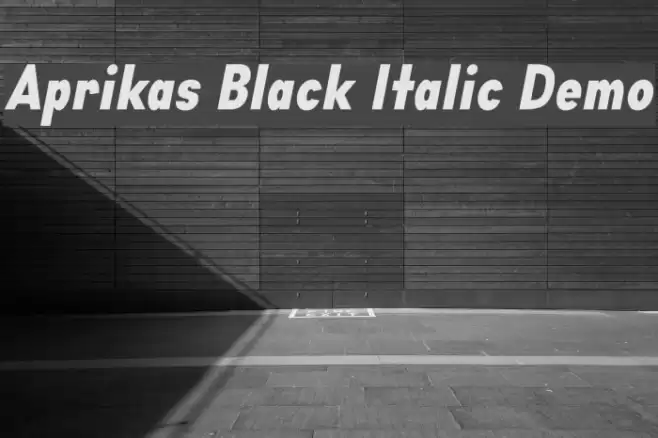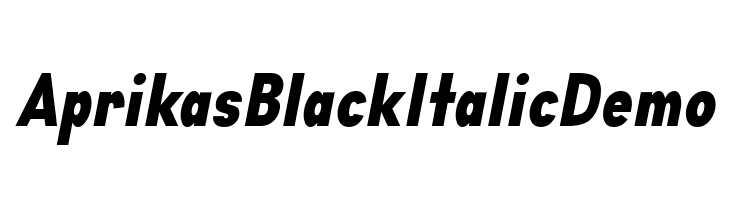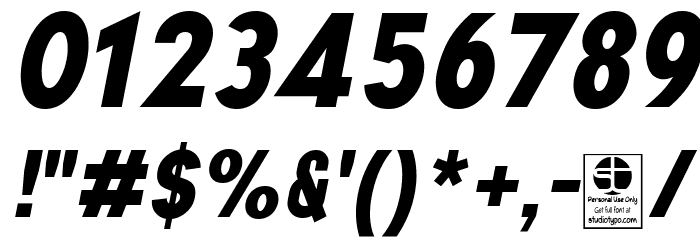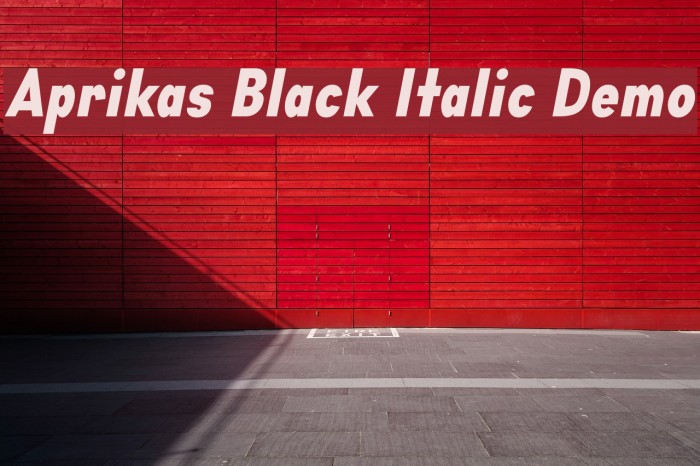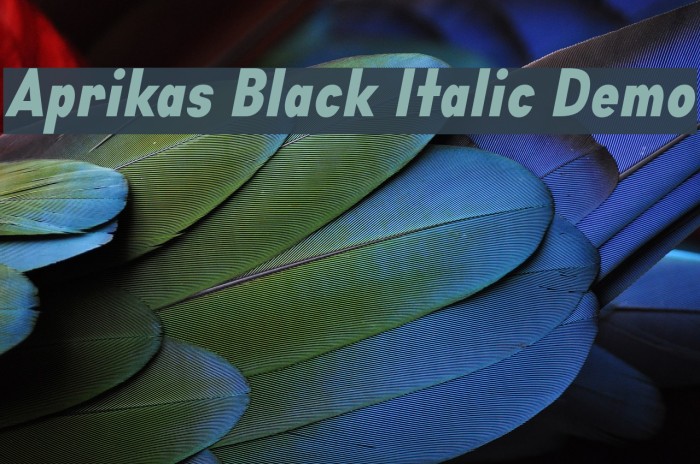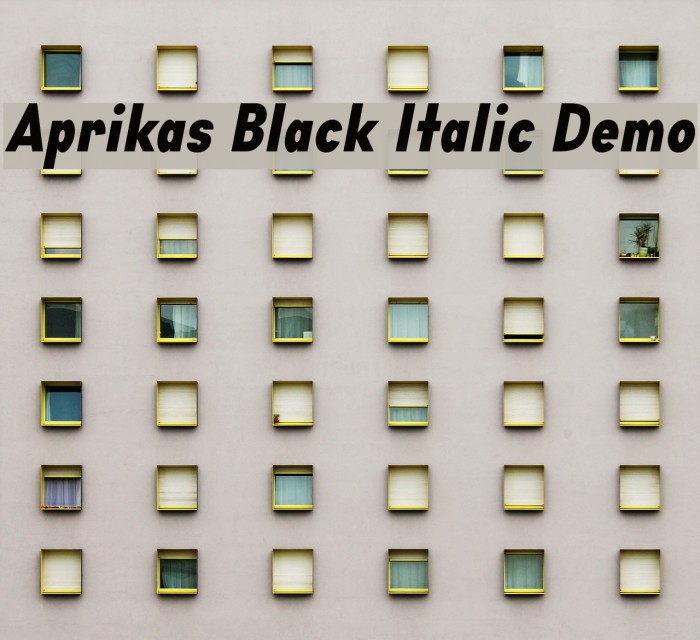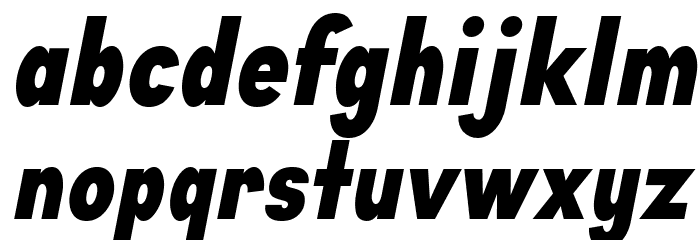
Aprikas Black Italic Demo Font
Aprikas Black Italic Demo Description
This font features a bold and italicized style, characterized by its strong, dynamic presence. The letters are slightly slanted, giving a sense of movement and energy. The strokes are thick and consistent, providing a robust and impactful appearance. The uppercase and lowercase letters maintain a uniform width, ensuring readability and balance. The numbers are equally bold, matching the overall aesthetic of the alphabet. Special characters are designed with the same boldness, ensuring consistency across all glyphs. This font is suitable for making a strong visual statement.
Bold, italicized font with thick strokes and a dynamic slant from Uncategorized fonts.
- Proposed Projects: Ideal for headlines, posters, logos, and branding materials that require a strong, impactful presence.